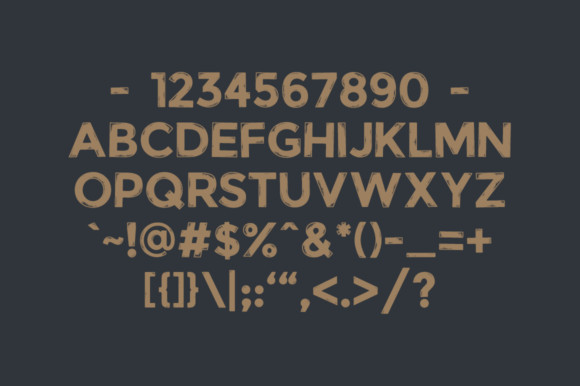
Watchers Font
Watchers is a solid sans serif font. It’s a strong font which makes it a great choice for headlines & titles. But at the same time it is also very legible, which makes it perfect for flyers, posters and bigger body text.